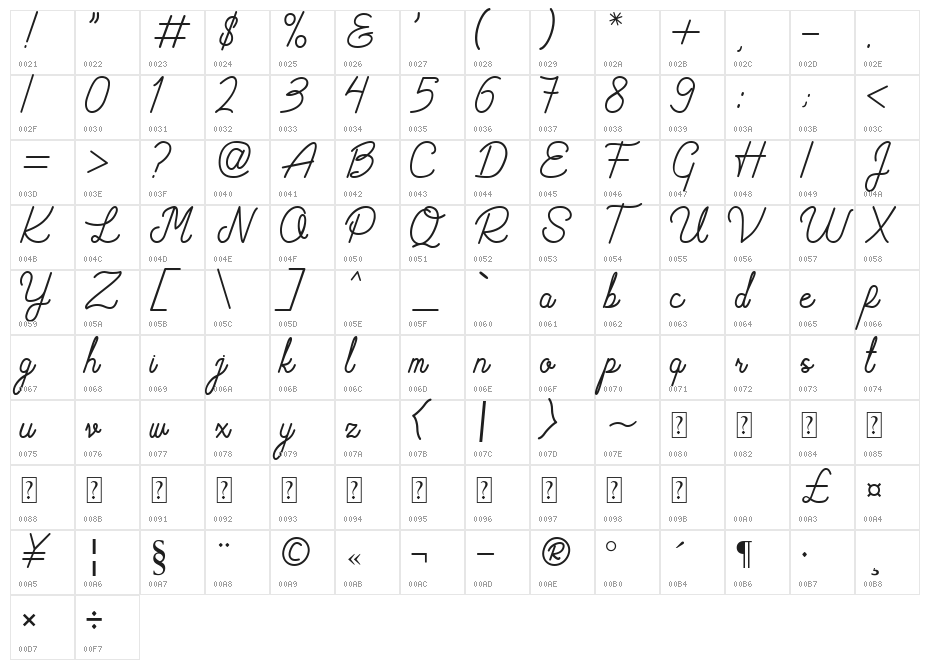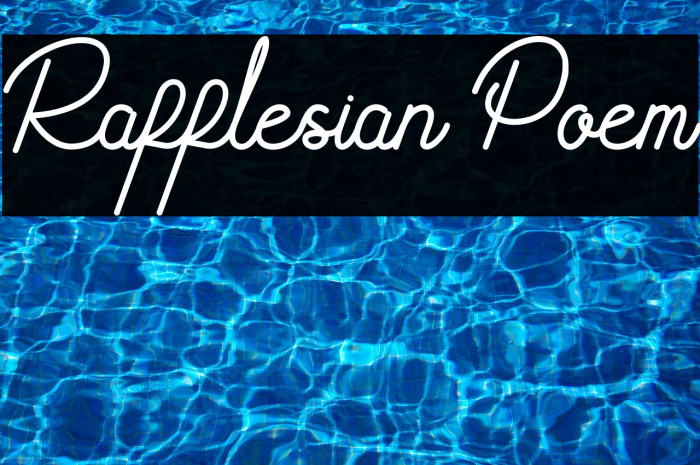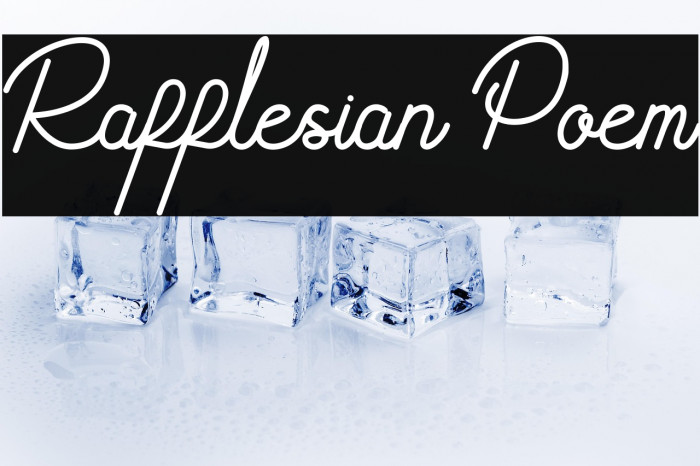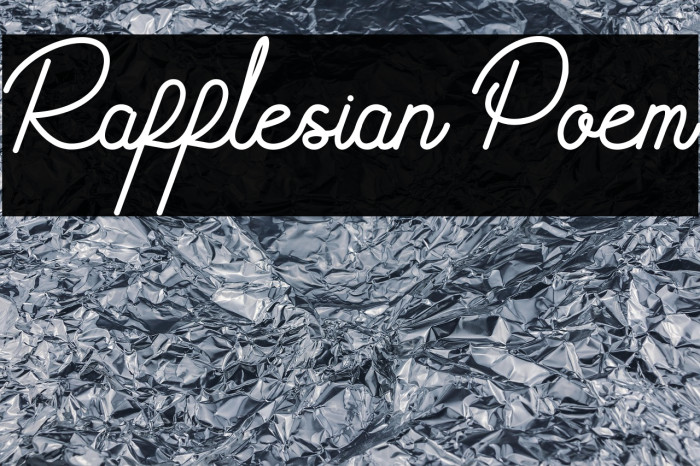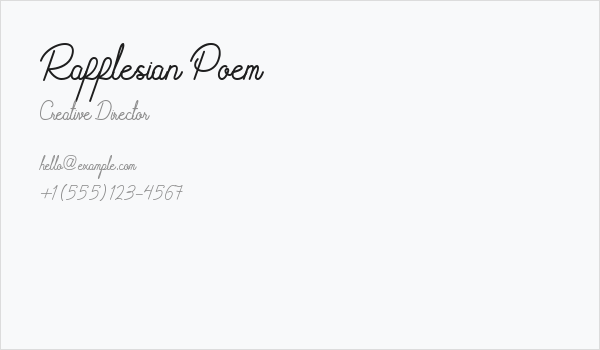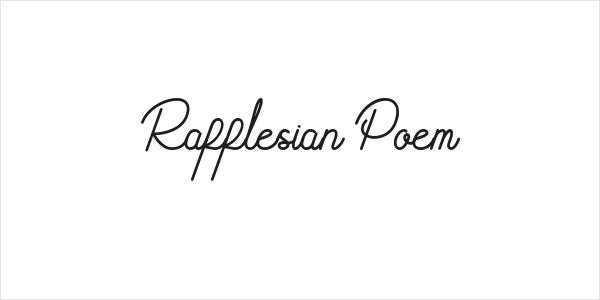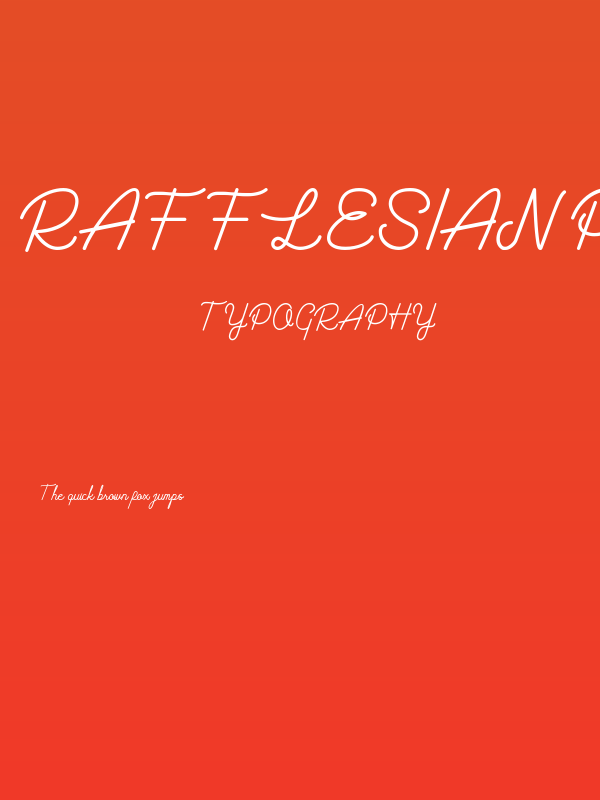
Rafflesian Poem Font
Rafflesian Poem Description
This elegant script font features a flowing, cursive style with smooth, connected letters that evoke a sense of sophistication and grace. The uppercase letters are slightly more formal, with gentle curves and loops, while the lowercase letters maintain a consistent flow, enhancing readability. The numerals and special characters are designed to match the overall aesthetic, providing a cohesive look. The font's delicate lines and moderate stroke contrast make it ideal for projects that require a touch of elegance and refinement.